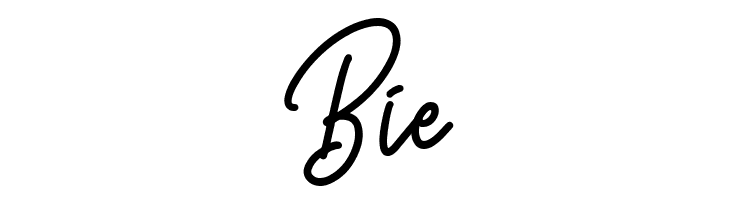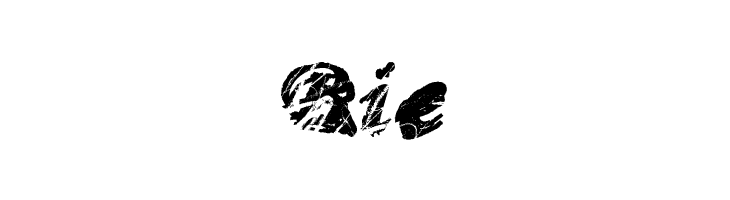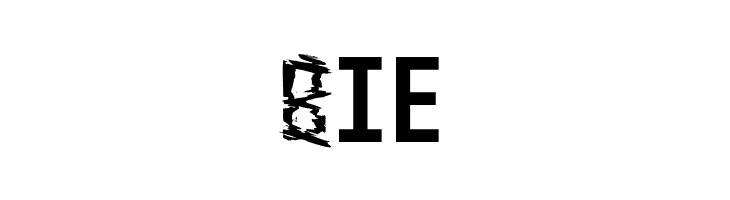
A modern, geometric monospaced font with clean lines and low contrast.
A monoline script font with a bold, slanted style and smooth, flowing connections.
A monoline signature font with a fluid, handwritten style.
A decorative font with a mosaic-like, handcrafted appearance.
A flowing, cursive script font with elegant, connected strokes.
A bold, cursive font with smooth, flowing lines and a handwritten appearance.
A bold, monospaced font with a jagged, distressed uppercase style and geometric lowercase design.
A bold, rounded, and geometric font with a modern and playful style.